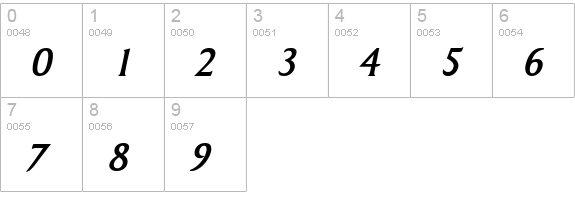
Barrett Bold Italic is a strong, high-contrast, italic variant in the Barrett typeface family \xE2\x80\x94 well suited to headlines, attention-grabbing titles, and strong calls-to-action.
Introducing Barrett Bold Italic - a striking and versatile font that exudes strength and sophistication. With its bold weight and elegant italic styling, this typeface is perfect for making a statement in your designs. The Barrett Bold Italic font features clean lines and subtle curves, creating a modern and refined look that is sure to capture attention. Best of all, Barrett Bold Italic is available for free download at FontsMarket.com. Whether you're working on a branding project, editorial design, or any other creative endeavor, this font will add a touch of boldness and flair to your work. Don't miss out on the opportunity to enhance your designs with the timeless elegance of Barrett Bold Italic - download it for free today!